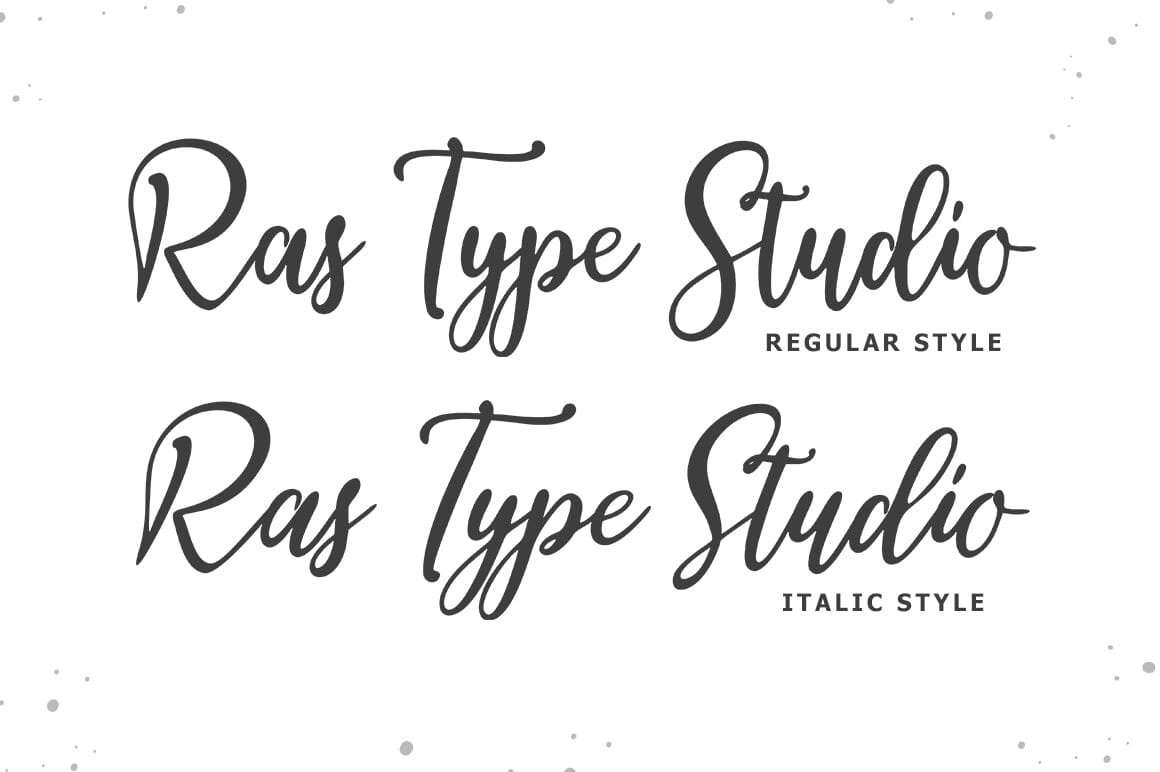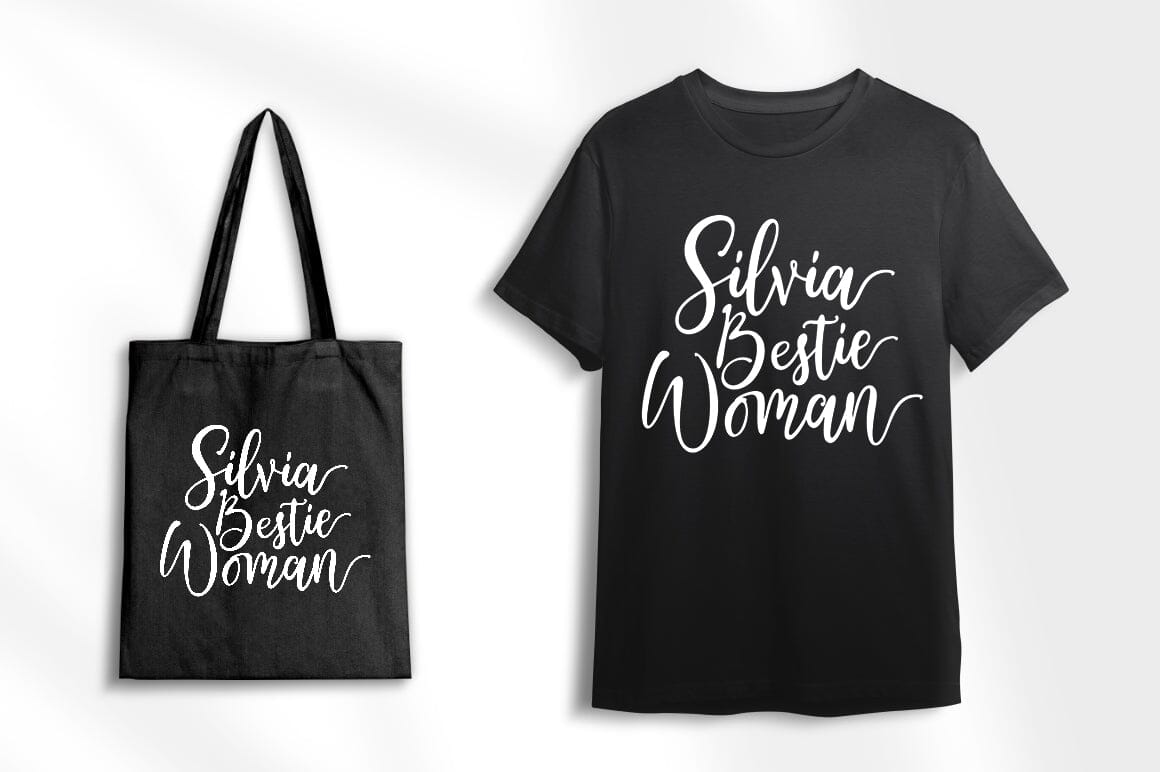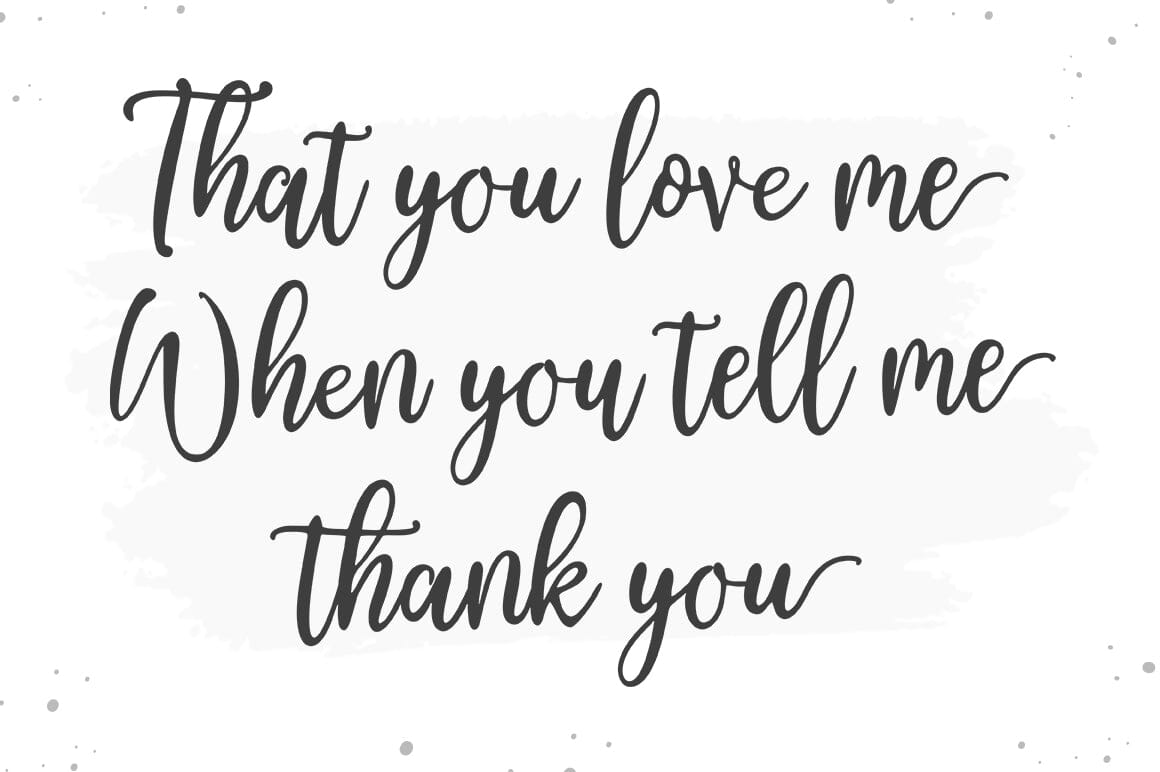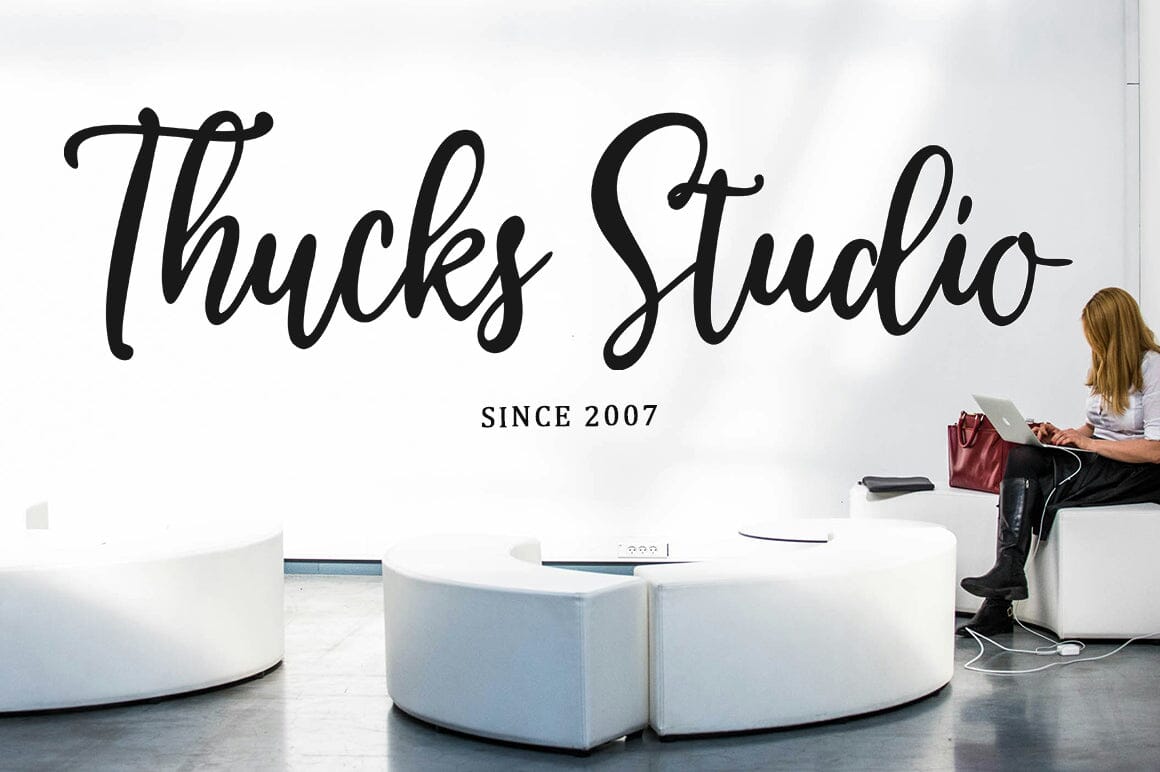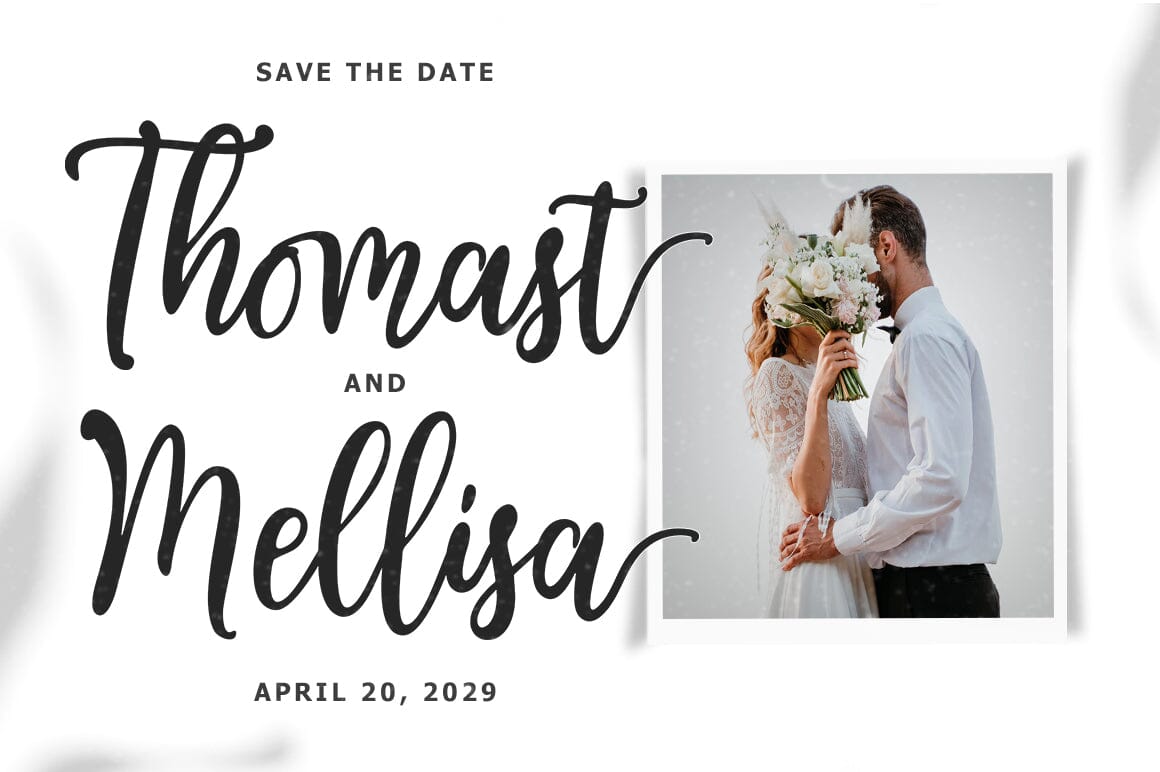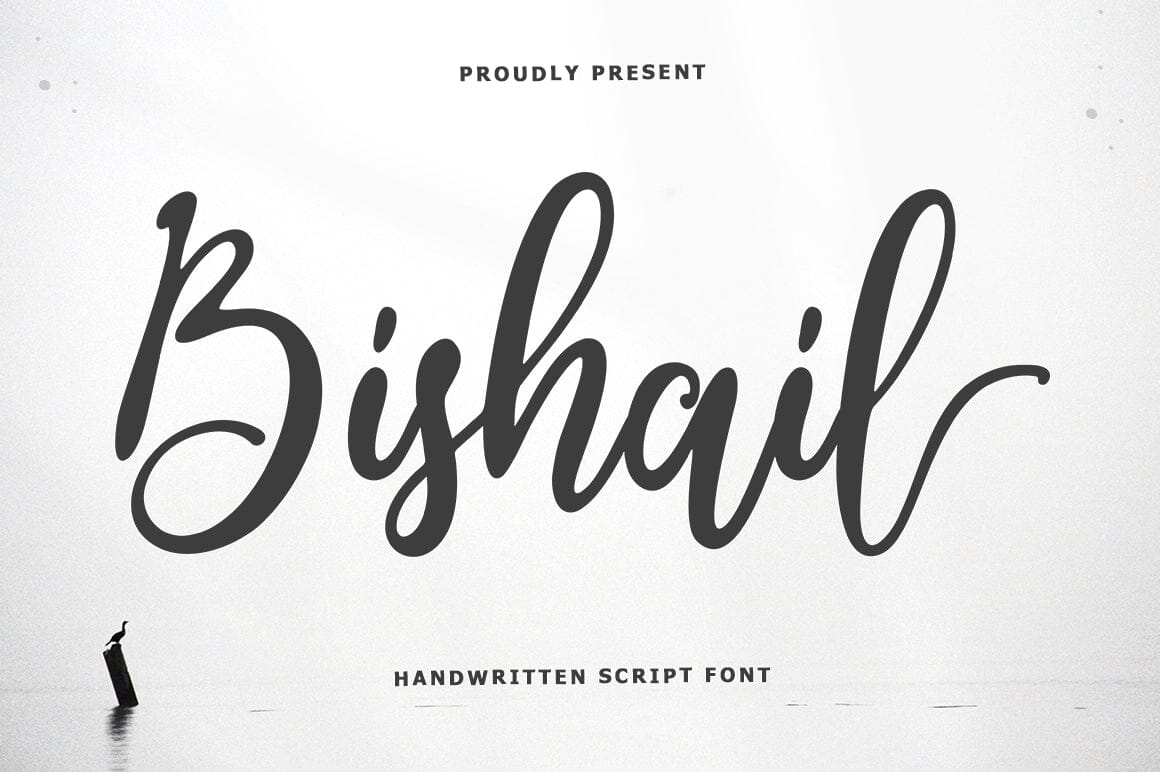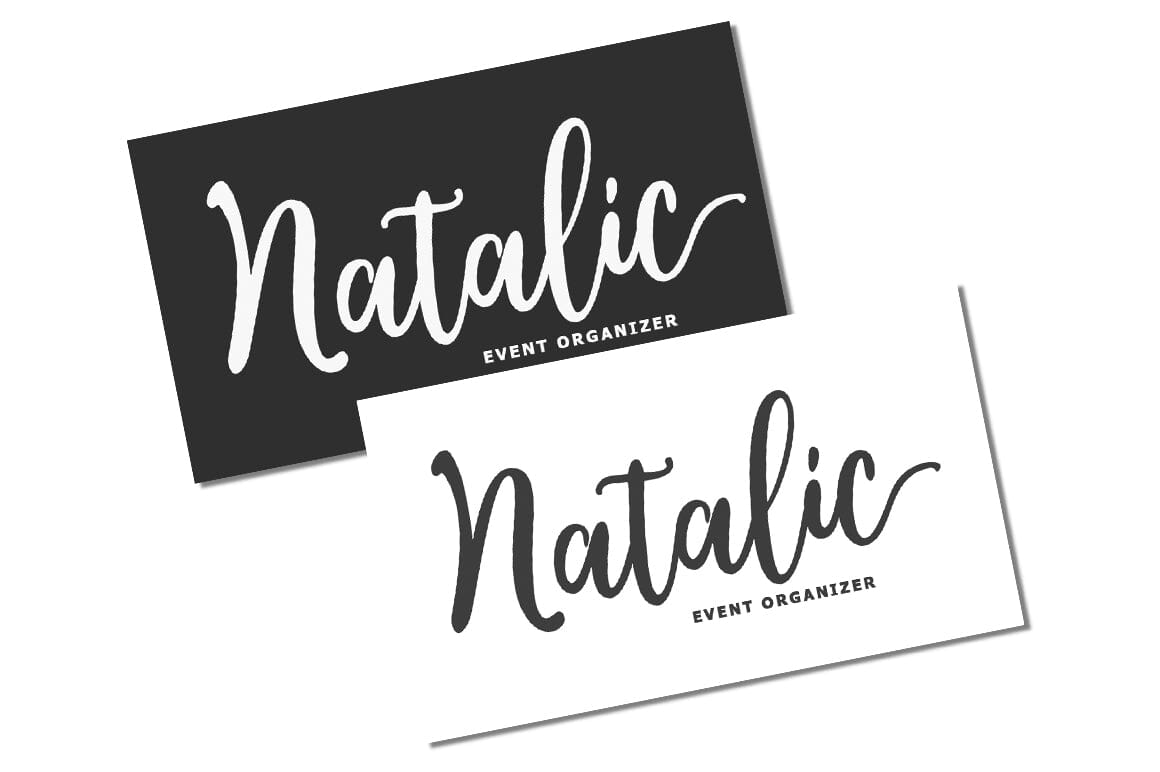
Bishail Script
About Bishail Script
Bishail Script is handwritten font with a modern calligraphy feel. Bishail Script is perfect for modern projects, headings, blogs, logos, brandings, invitations and more! The font includes multiple language support. Happy Designing!